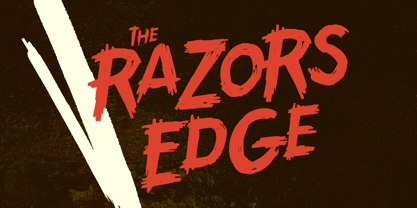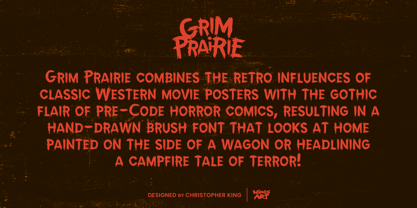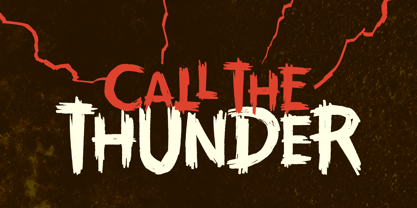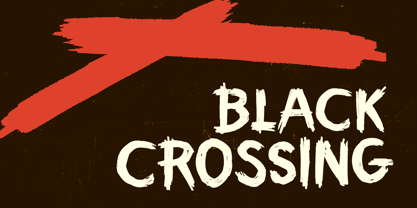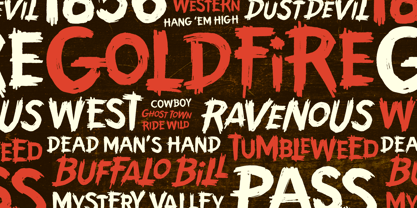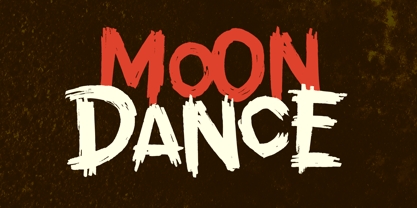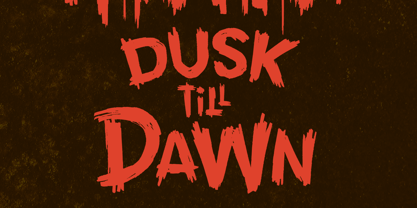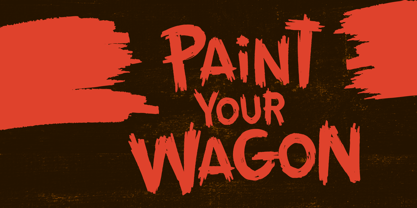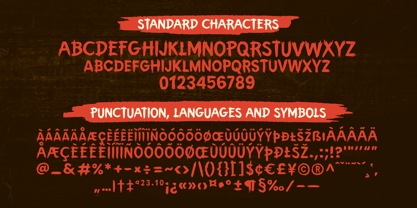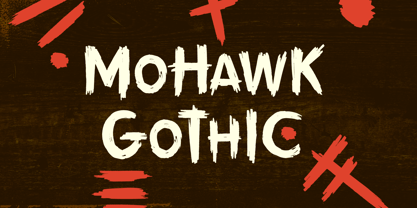
Grim Prairie
The Grim Prairie Font Family was designed by Christopher King and published by Wing's Art Studio. Grim Prairie contains 2 styles and family package options. More about this family
Grim Prairie: A Hand-Drawn Western Horror Brush Font Grim Prairie combines the retro influences of classic Western movie posters with the gothic flair of pre-Code horror comics, resulting in a hand-drawn brush font that looks at home painted on the side of a wagon or headlining a campfire tale of terror! It's an all-caps design that adheres to formal lettering standards, while executed with a chisel-tipped brush for a textured look that maintains readability - perfect for impactful title designs and signage. The Grim Prairie font includes all-caps uppercase and unique lowercase characters, along with numerals, punctuation, symbols, and language support. It also comes with an italic alternative that offers a more contemporary, video-game look.
Designers: Christopher King
Foundry: Wing's Art Studio
Grim Prairie
Christopher King (aka Wingsart Studio) is a Graphic Designer specialising in hand-drawn lettering for film and television titles. From blockbuster films to indie press, Wingsart Studio fonts have appeared on screens big and small around the globe. His work has been used by companies including Disney, Marvel, Apple, Netflix and Paramount Studios.The Wingsart Studio philosophy is to embrace the imperfections inherent with real pens, pencils, paper and brush. In counter-balance to an AI driven age, these fonts remain refreshingly analogue and proud of their human touch. Before a single letter turns into a digital product, countless hours are spent researching and sketching out ideas in pursuit of those perfect lines and shapes.